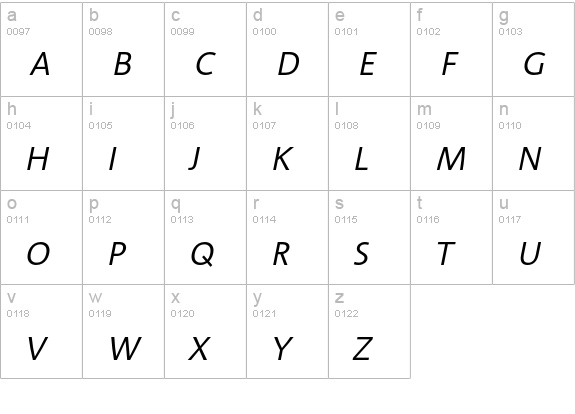
Corpid Caps Light Italic Font Details
Corpid Caps Light Italic is a refined, elegant, italic variant in the Corpid typeface family \xE2\x80\x94 well suited to elegant body text, refined sub-headings, and luxury branding.
Corpid Caps Light Italic font is a modern and elegant typeface that exudes sophistication and style. Its delicate italic style adds a touch of flair to any design project, making it perfect for use in branding, editorial design, or any creative endeavor requiring a touch of finesse. The sleek lines and graceful curves of this font make it a versatile choice for a wide range of applications. What makes Corpid Caps Light Italic font even more appealing is that it is completely free to download at FontsMarket.com. This means you can easily access this high-quality font without any cost, making it an excellent choice for designers on a budget or anyone looking to enhance their projects with a premium typeface. Don't miss out on the opportunity to elevate your designs with Corpid Caps Light Italic font, available for free at FontsMarket.com.